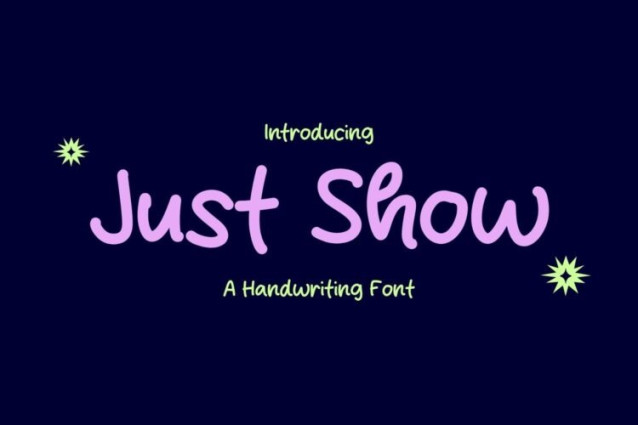
Just Show Font
Just Show Font is a simple and friendly handwritten font. Its natural and unique style makes it incredibly fitting to a large pool of designs. The only limit is your imagination!